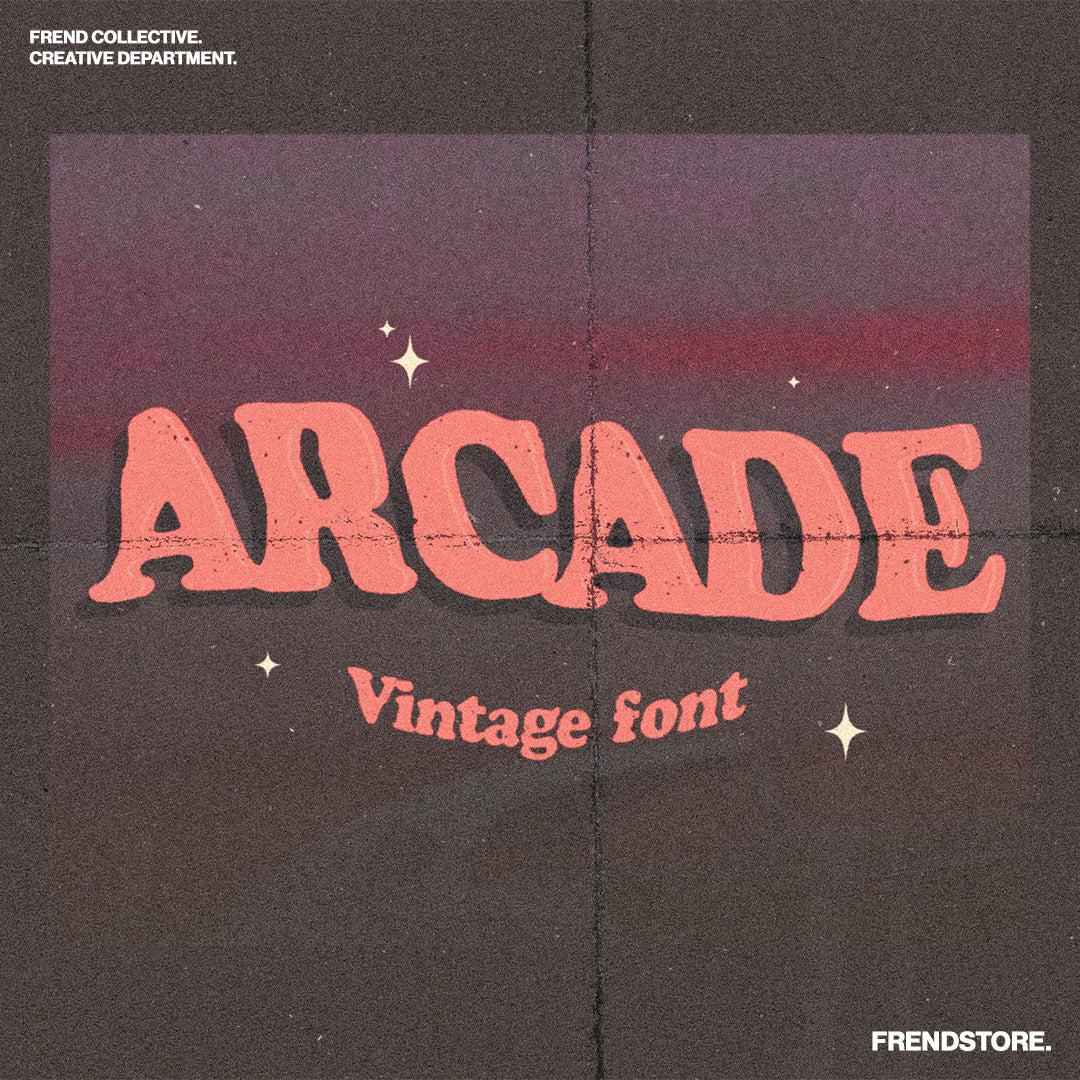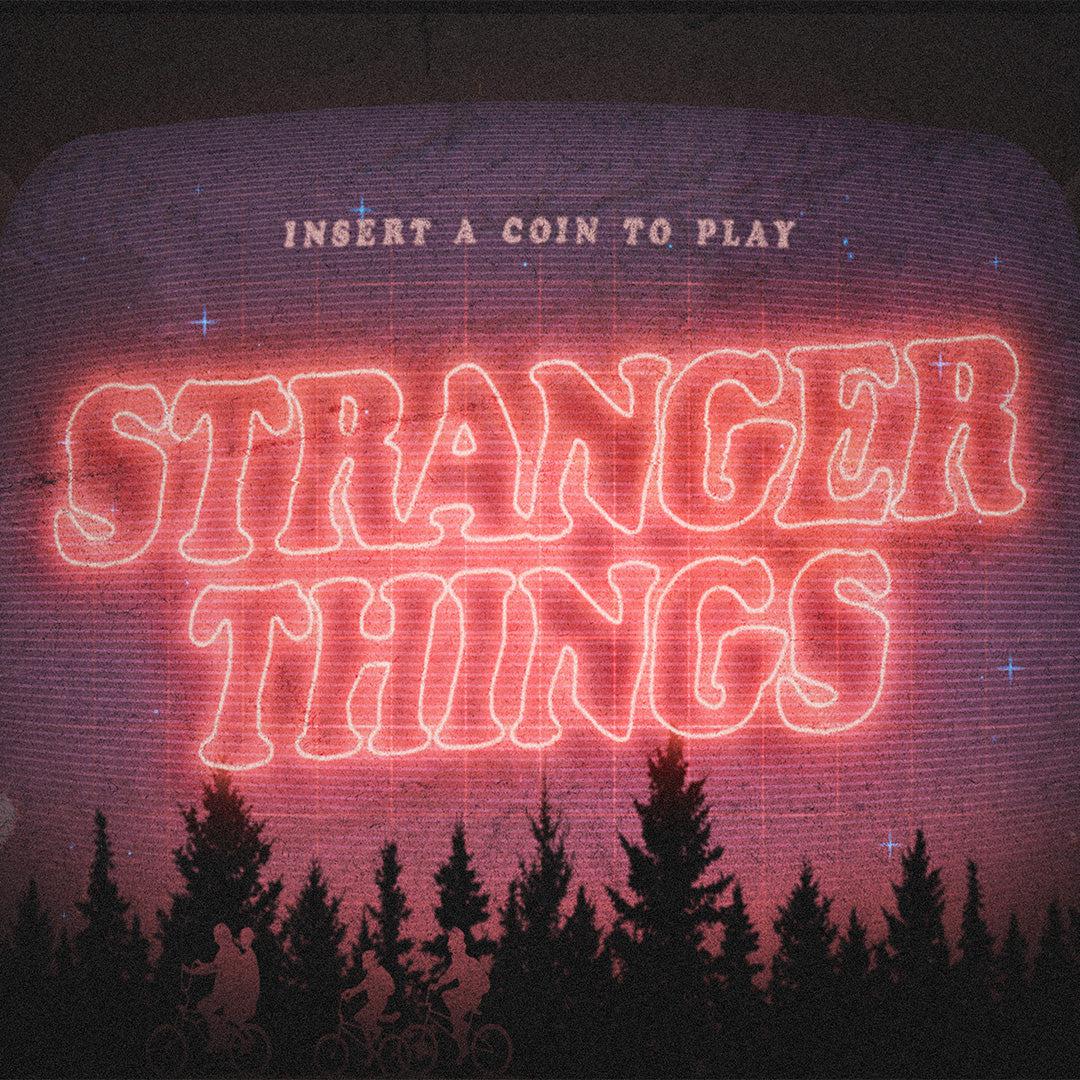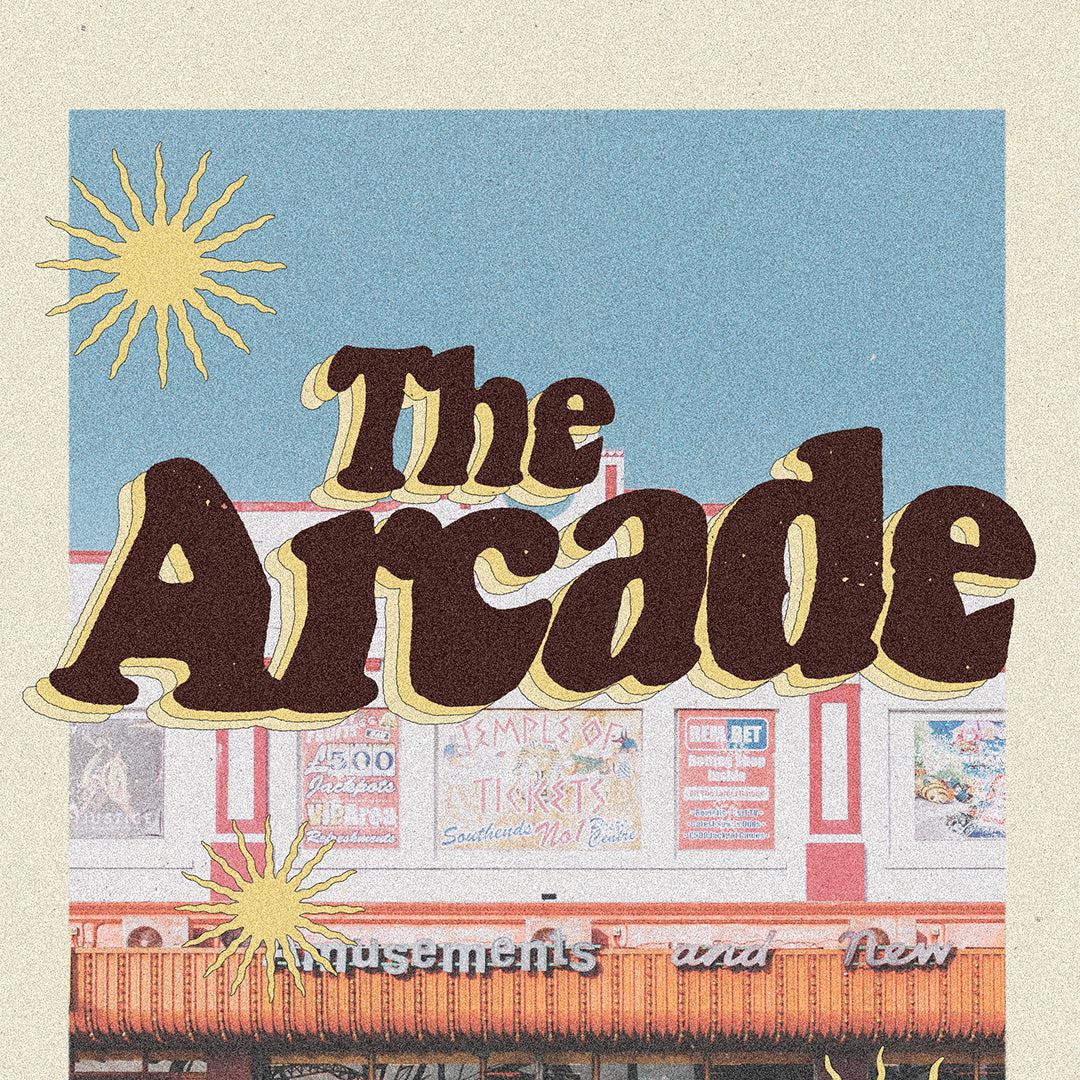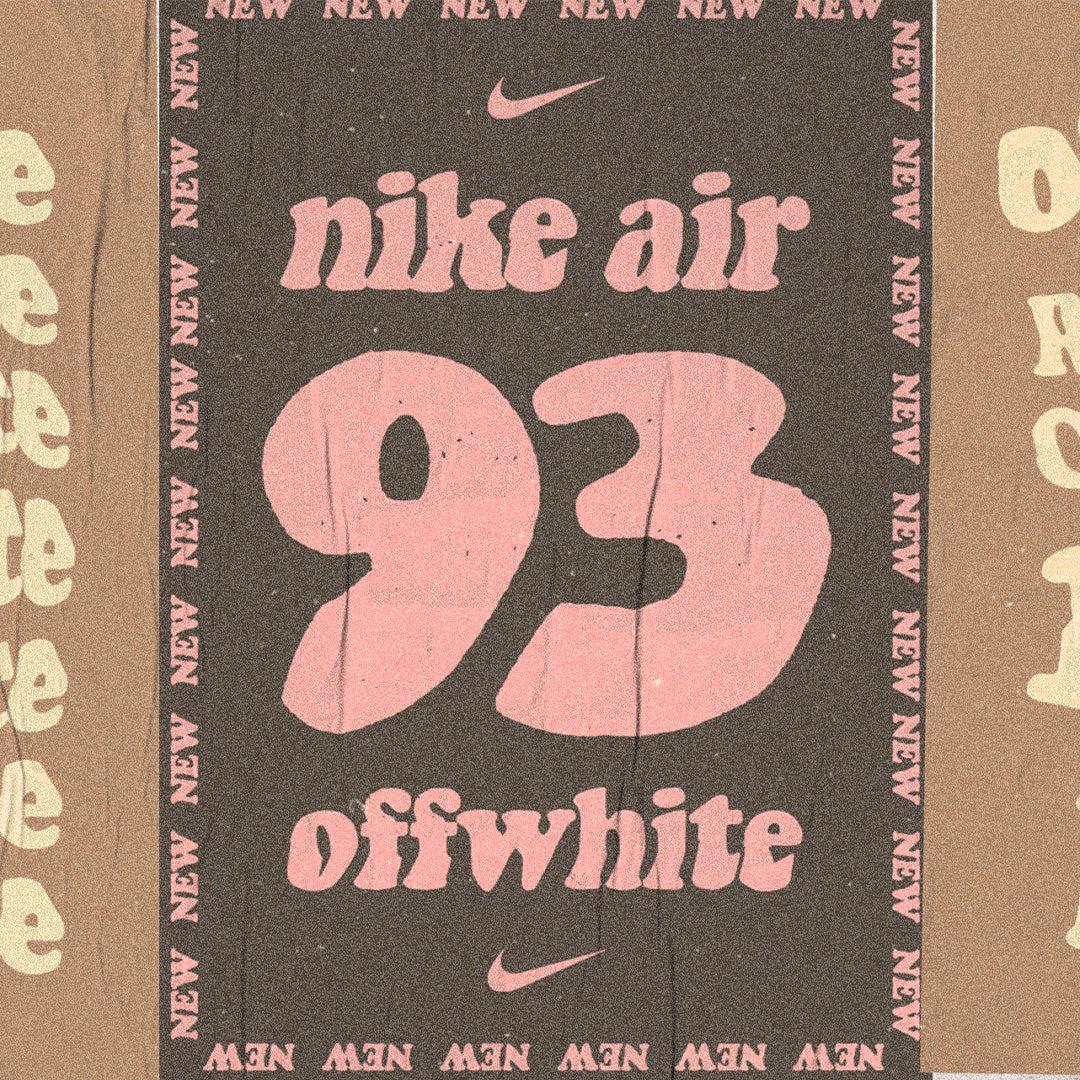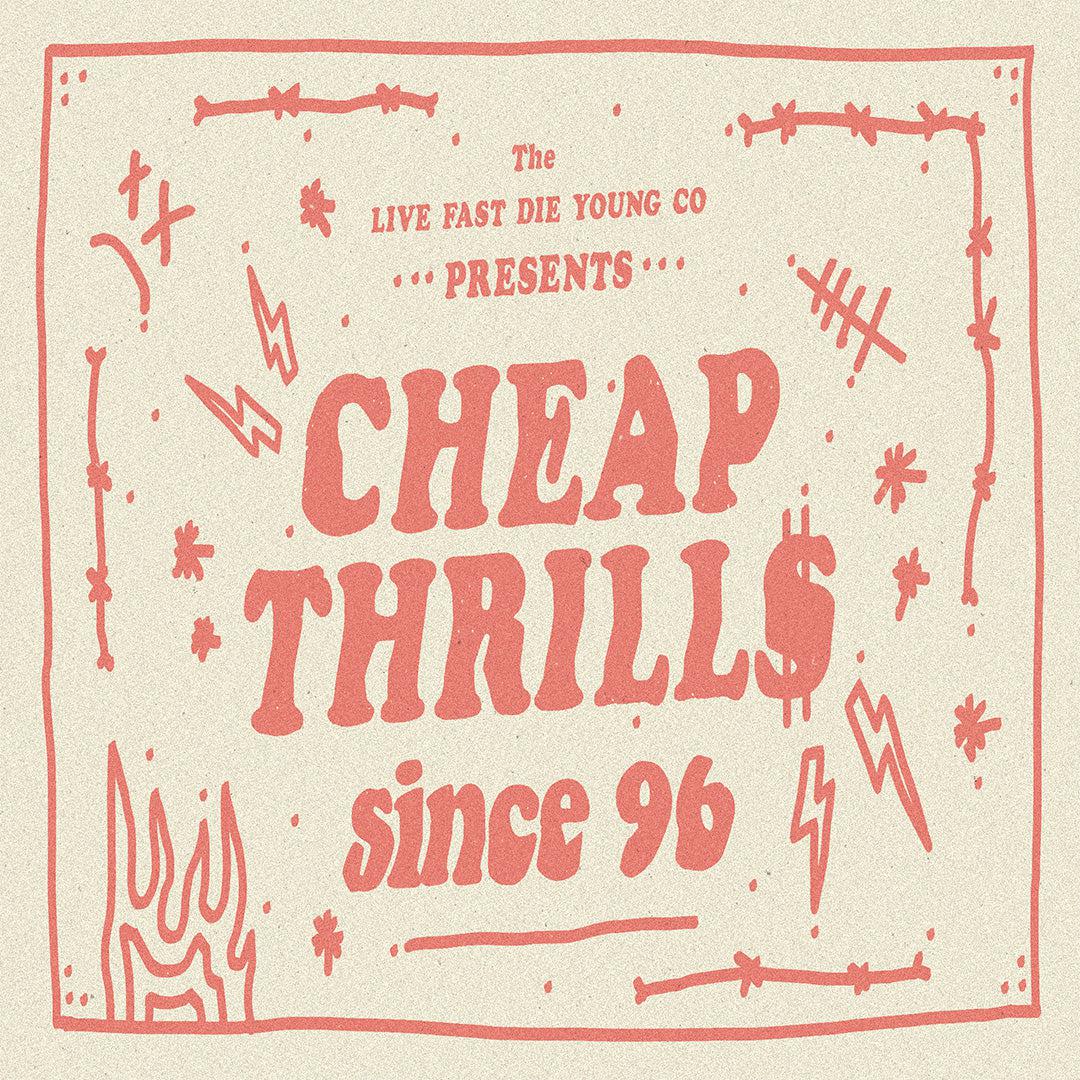
ARCADE Font
Arcade Font is a completely unique and custom vintage inspired font. Arcade comes with 3 variations which you can mix & match and is perfect for any design project!
The ARCADE Font is a unique, vintage-inspired custom font that includes three variations for diverse design needs. It is a hand-drawn, bold display font with retro and Y2K elements.